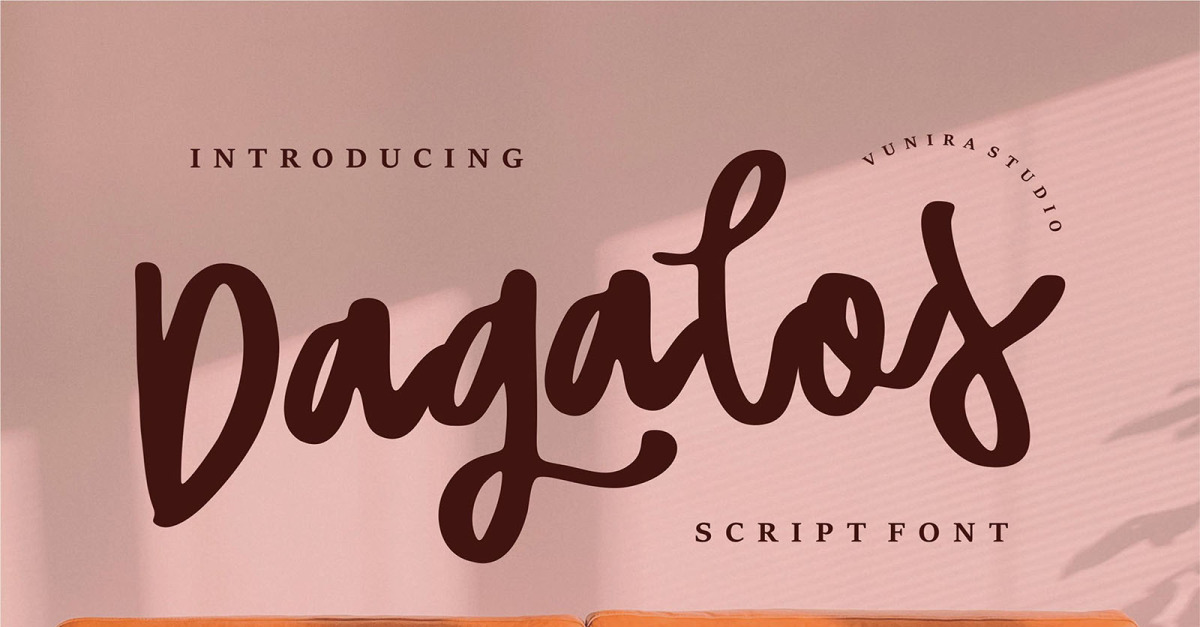
Dagalos | Cursive Font
**Dagalos | Script Font** with a calligraphy style, So beautiful on invitation like greeting cards, branding materials, business cards, quotes, posters, and more!